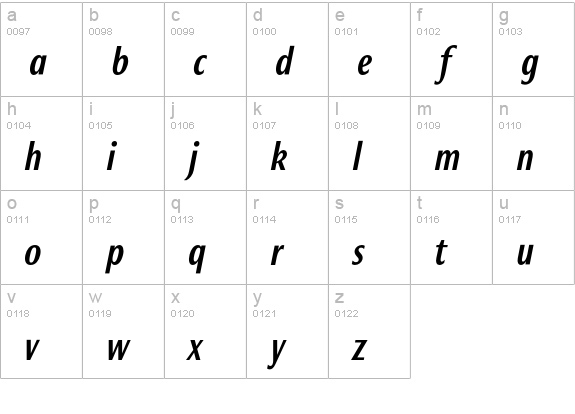
Roxy-MediumItalic Font Details
Roxy-MediumItalic font is a stylish and modern typeface that exudes sophistication and elegance. Its medium weight and italic styling add a touch of flair to any design project. The sleek and streamlined letterforms make it perfect for headings, logos, and other display purposes. This versatile font strikes the perfect balance between professionalism and creativity, making it suitable for a wide range of applications. The best part about Roxy-MediumItalic font is that it is completely free to download at FontsMarket.com. Whether you are a designer looking to add a unique touch to your projects or a business owner seeking a distinctive font for branding, Roxy-MediumItalic is the perfect choice. Download it today and elevate your designs with this eye-catching and contemporary typeface.